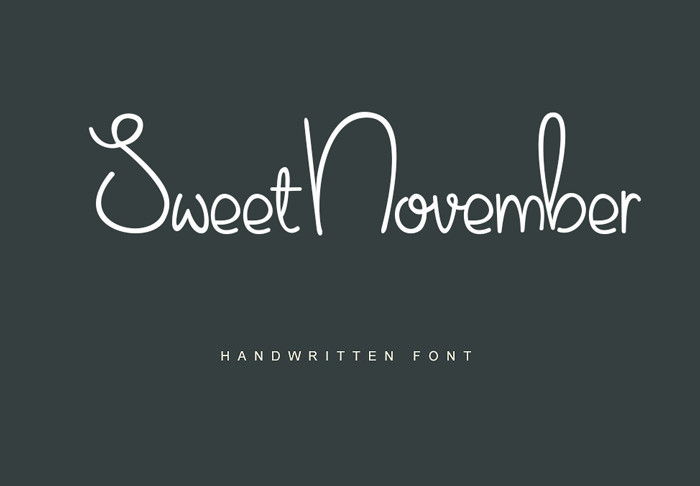
Sweet November Font
Glad to introduce you an impressive handwriting. Introducing Sweet November Font! Sweet November was designed and shares by Haidi Shabrina. Sweet November is modern script font, every single letters have been carefully crafted to make your text looks beautiful. With modern script style this font will perfect for many different project ex: quotes, blog header, poster, wedding, branding, logo, fashion, apparel, letter, invitation, stationery, etc